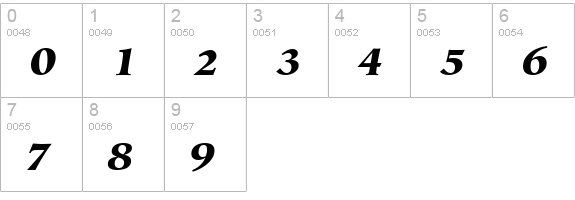
Glossary Black SSi Black Italic is a maximum-weight, dramatic, italic variant in the Glossary typeface family \xE2\x80\x94 well suited to maximum-impact headlines, posters, and packaging.
Glossary Black SSi Black Italic font is a visually stunning and versatile typeface that exudes elegance and sophistication. Its bold and italic design makes it perfect for adding a touch of modernity and style to any project. The font features clean lines and sharp angles, creating a sleek and polished appearance that commands attention. What sets Glossary Black SSi Black Italic font apart is its unique blend of classic and contemporary elements, making it a standout choice for designers looking to make a statement. Whether used for headlines, logos, or branding materials, this font is sure to leave a lasting impression. The best part? Glossary Black SSi Black Italic font is available for free download at FontsMarket.com. Simply visit the website to access this exquisite font and elevate your designs with its elegant aesthetic. Don't miss out on this opportunity to enhance your projects with a font that embodies sophistication and style.